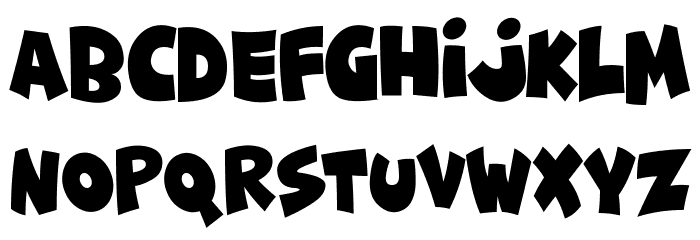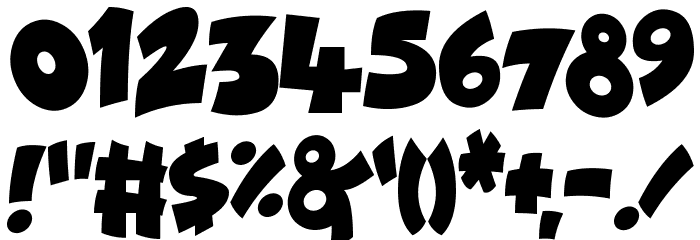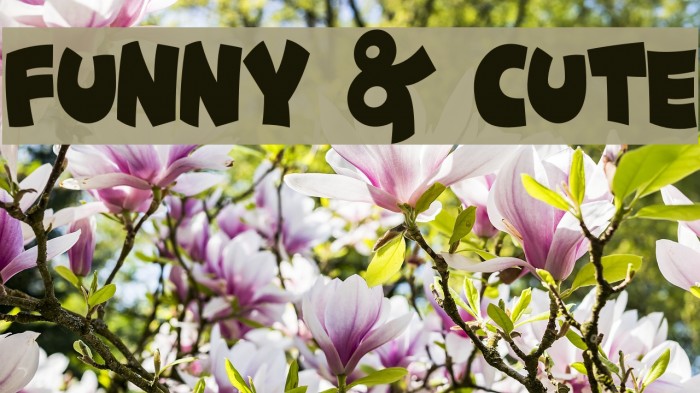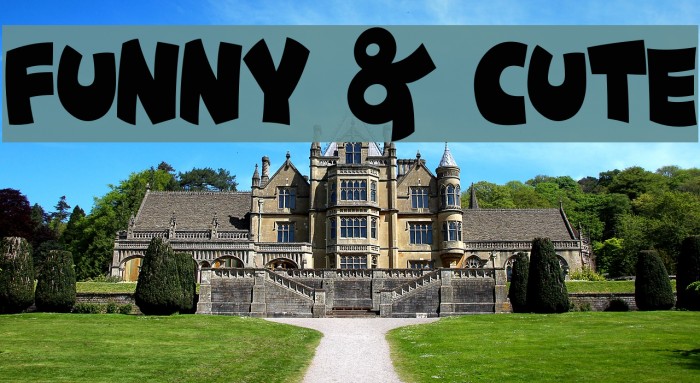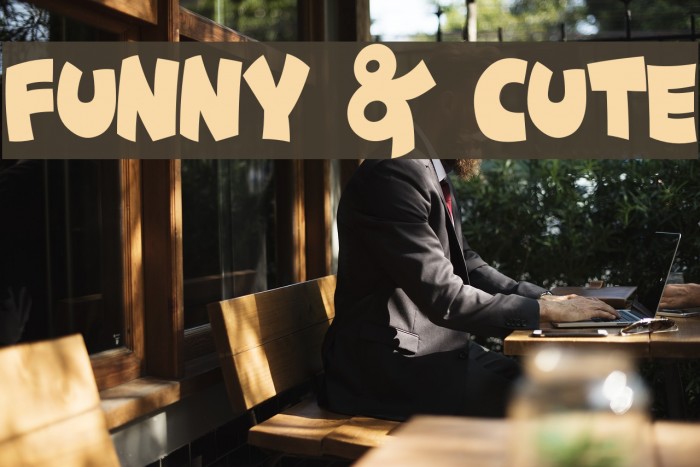
Funny & Cute Font
This playful and whimsical font features bold, chunky letters with a slightly irregular shape, giving it a fun and lively appearance. The characters are designed with exaggerated curves and angles, creating a sense of movement and energy. The uppercase and lowercase letters maintain a consistent style, with the lowercase letters being slightly smaller and more compact. The numbers and special characters follow the same playful design, ensuring a cohesive look across all text elements. This font is perfect for projects that require a touch of humor and creativity, making it ideal for children's books, comic strips, and playful branding.
A bold, playful font with chunky, irregular shapes and lively energy.
- Proposed Projects: Ideal for children's books, comic strips, playful branding, and creative posters.
- Overall Style: Playful, Whimsical